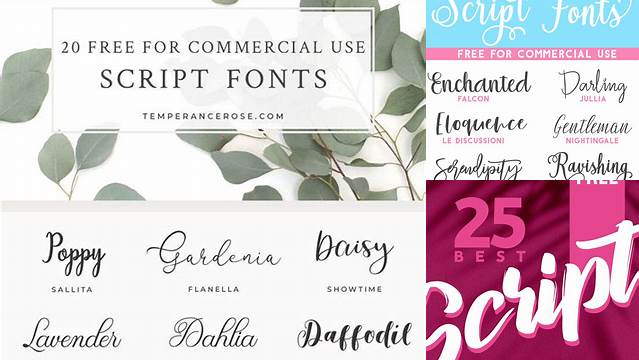
Top Free Script Fonts For Commercial Use
Hey guys! Finding the perfect font for your project can be a real headache, especially when you need something that looks amazing and is free for commercial use. Let’s dive into some of the best free script fonts that will make your designs pop without breaking the bank.
1. Understanding Freemercial Fonts
Choosing the right font is crucial for branding and readability. A good script font can add a touch of elegance or fun, depending on the style. The best free script fonts offer versatility and can be used in a variety of projects, from logos to marketing materials.
When browsing for the perfect free script fonts, you'll want to look at aspects like legibility, style, and overall aesthetic appeal. A font that looks great but is hard to read won't do you any favors. You want something that enhances your design and communicates your message effectively. Remember that the overall goal is to find the best free script fonts that complement your brand and style.
2. Elegant Freemercial Script Fonts
If you're aiming for sophistication, elegant freemercial script fonts are the way to go. These fonts often feature flowing lines and delicate curves, making them ideal for wedding invitations, luxury branding, and high-end product designs. The key is to choose a font that exudes class without being overly ornate. Imagine a beautifully designed logo for a boutique using a graceful script—it instantly conveys a sense of quality and attention to detail.
The most effective elegant freemercial script fonts are those that strike a balance between beauty and readability. A font might be visually stunning, but if it's difficult to decipher, it won't serve its purpose. Look for fonts that maintain a clear structure while still showcasing elegant flourishes. For instance, a font with subtle swashes and refined letterforms can add a touch of sophistication without sacrificing clarity.
When selecting elegant freemercial script fonts, consider the overall tone and message of your project. A font that feels too casual or playful might not be suitable for a formal event invitation, while a font that is too rigid could feel out of place in a creative branding campaign. The goal is to find a font that aligns seamlessly with your aesthetic and communicates the desired impression.
3. Modern Freemercial Script Fonts
Modern freemercial script fonts bring a contemporary edge to your projects. Think clean lines, bold strokes, and a fresh feel. These fonts work wonders for tech startups, fashion brands, and anything that needs a current, stylish vibe. They’re versatile enough to use in web design, social media graphics, and even app interfaces.
The strength of modern freemercial script fonts lies in their ability to blend traditional script elements with modern design principles. Unlike more ornate or traditional scripts, these fonts often feature simplified letterforms and a more streamlined aesthetic. This makes them well-suited for digital applications, where clarity and legibility are paramount.
Choosing modern freemercial script fonts means considering how well the font integrates with other design elements. A modern script should complement your overall visual identity, adding a touch of personality without overwhelming the rest of the design. Think about how the font will look alongside other typefaces, images, and graphic elements to ensure a cohesive and visually appealing result.
4. Casual Freemercial Script Fonts
For a relaxed and friendly feel, casual freemercial script fonts are your best bet. These fonts have a handwritten touch, making them perfect for blog headers, greeting cards, and anything that needs a personal touch. They often have a slightly imperfect, playful quality that adds character to your designs.
What makes casual freemercial script fonts so appealing is their ability to convey warmth and approachability. Unlike more formal or sophisticated scripts, these fonts feel relatable and down-to-earth. They evoke a sense of authenticity, making them ideal for projects that aim to connect with audiences on a personal level.
When using casual freemercial script fonts, it's important to consider the context and tone of your message. A casual font might not be appropriate for a serious or formal project, but it can be incredibly effective for adding a touch of personality to more lighthearted designs. Think about how the font complements your overall message and ensures that it resonates with your target audience.
5. Bold Freemercial Script Fonts
Need to make a statement? Bold freemercial script fonts are here to help! These fonts are strong and eye-catching, ideal for headlines, posters, and branding that needs to stand out. Their thick strokes and confident curves demand attention, ensuring your message gets noticed.
The power of bold freemercial script fonts lies in their ability to command attention. These fonts are designed to make an impact, drawing the viewer's eye and conveying a sense of strength and confidence. They are particularly effective in headlines and titles, where they can instantly grab the reader's attention and communicate the main message.
When selecting bold freemercial script fonts, it's important to consider the overall design and ensure that the font complements other elements. A bold font can easily overpower a design if not used carefully, so it's essential to strike a balance and ensure that the font works harmoniously with other typefaces, images, and graphic elements.
6. Thin Freemercial Script Fonts
For a delicate and subtle touch, thin freemercial script fonts are a great choice. These fonts are light and airy, perfect for adding a touch of elegance to invitations, logos, and designs where subtlety is key. Their fine lines create a sophisticated, understated look.
The appeal of thin freemercial script fonts lies in their understated elegance. These fonts are designed to convey a sense of refinement and sophistication, making them ideal for projects that require a delicate touch. They work particularly well in applications where subtlety is valued, such as wedding invitations, luxury branding, and high-end product designs.
When choosing thin freemercial script fonts, it's important to ensure that the font remains legible, especially at smaller sizes. Thin fonts can sometimes become difficult to read if the lines are too fine or the contrast is too low. It's essential to test the font in various sizes and contexts to ensure that it remains clear and readable.
7. Vintage Freemercial Script Fonts
Vintage freemercial script fonts bring a touch of nostalgia to your designs. These fonts often feature ornate details and a classic feel, perfect for retro branding, posters, and projects that need a timeless appeal. They evoke a sense of history and craftsmanship.
The charm of vintage freemercial script fonts is their ability to transport viewers to another era. These fonts often feature elaborate swashes, ornamental details, and a handcrafted feel that evokes a sense of nostalgia. They are particularly effective for projects that aim to capture a vintage aesthetic, such as retro branding, antique-inspired designs, and historical recreations.
When using vintage freemercial script fonts, it's important to consider the overall context and ensure that the font aligns with the desired historical period. Different vintage fonts evoke different eras, so it's essential to choose a font that accurately reflects the intended time period. Pay attention to details such as letterforms, ornamentation, and overall style to ensure that the font captures the essence of the vintage aesthetic.
8. Handwritten Freemercial Script Fonts
For an authentic, personal touch, handwritten freemercial script fonts are the way to go. These fonts mimic real handwriting, making them perfect for signatures, notes, and designs that need a human feel. They add warmth and character to any project.
What makes handwritten freemercial script fonts so appealing is their ability to convey authenticity and personality. These fonts mimic the irregularities and nuances of real handwriting, creating a sense of intimacy and connection. They are particularly effective for projects that aim to establish a personal connection with the audience, such as handwritten notes, personalized stationery, and custom artwork.
When selecting handwritten freemercial script fonts, it's important to ensure that the font remains legible and readable. Handwriting styles can vary widely, so it's essential to choose a font that balances authenticity with clarity. Look for fonts that capture the essence of handwriting without sacrificing legibility.
9. Brush Freemercial Script Fonts
Brush freemercial script fonts have a textured, artistic look, like they were painted with a brush. These fonts are great for posters, logos, and designs that need a handmade feel. They add a dynamic, expressive touch to your work.
The allure of brush freemercial script fonts lies in their ability to convey a sense of artistic expression and spontaneity. These fonts mimic the strokes and textures of real brush lettering, creating a dynamic and visually engaging effect. They are particularly effective for projects that aim to capture a handmade or artisanal aesthetic, such as posters, logos, and artistic designs.
When using brush freemercial script fonts, it's important to consider the overall design and ensure that the font complements other elements. Brush fonts can be quite bold and expressive, so it's essential to use them sparingly and balance them with other design elements. Think about how the font interacts with images, colors, and other typefaces to create a cohesive and visually appealing composition.
10. Calligraphy Freemercial Script Fonts
Calligraphy freemercial script fonts bring an elegant, refined touch to your designs. These fonts mimic traditional calligraphy, perfect for wedding invitations, formal announcements, and projects that need a classic, sophisticated look. They add a touch of artistry and grace.
What makes calligraphy freemercial script fonts so special is their ability to convey elegance and sophistication. These fonts mimic the fluid strokes and ornate details of traditional calligraphy, creating a sense of refinement and artistry. They are particularly effective for projects that require a formal or upscale aesthetic, such as wedding invitations, formal announcements, and luxury branding.
When selecting calligraphy freemercial script fonts, it's important to ensure that the font remains legible and readable. Calligraphy styles can vary widely, so it's essential to choose a font that balances elegance with clarity. Look for fonts that capture the essence of calligraphy without sacrificing legibility.
11. Display Freemercial Script Fonts
Display freemercial script fonts are designed to grab attention. These fonts are bold, unique, and often quirky, perfect for headlines, posters, and designs that need to stand out. They're all about making a statement.
The strength of display freemercial script fonts lies in their ability to command attention and create a visual impact. These fonts are designed to be eye-catching and memorable, making them ideal for headlines, posters, and other applications where visual prominence is essential. They often feature unique letterforms, exaggerated details, and unconventional designs.
When using display freemercial script fonts, it's important to consider the overall design and ensure that the font complements other elements. Display fonts can be quite bold and attention-grabbing, so it's essential to use them sparingly and balance them with other design elements. Think about how the font interacts with images, colors, and other typefaces to create a cohesive and visually appealing composition.
12. Light Freemercial Script Fonts
Light freemercial script fonts offer a subtle, airy feel. These fonts are delicate and refined, perfect for designs where you want to add a touch of elegance without overpowering the overall look. They’re great for invitations, logos, and subtle branding elements.
The appeal of light freemercial script fonts lies in their understated elegance and subtlety. These fonts are designed to convey a sense of refinement and sophistication without being overly assertive. They work particularly well in applications where a delicate touch is desired, such as wedding invitations, luxury branding, and minimalist designs.
When choosing light freemercial script fonts, it's important to ensure that the font remains legible, especially at smaller sizes. Light fonts can sometimes become difficult to read if the lines are too fine or the contrast is too low. It's essential to test the font in various sizes and contexts to ensure that it remains clear and readable.
13. Rounded Freemercial Script Fonts
Rounded freemercial script fonts provide a soft, friendly vibe. These fonts feature smooth, curved lines, making them perfect for designs that need a warm and approachable feel. Think greeting cards, children’s books, and friendly branding.
The charm of rounded freemercial script fonts is their ability to convey warmth and friendliness. These fonts feature soft, curved lines and gentle shapes, creating a sense of approachability and comfort. They are particularly effective for projects that aim to evoke positive emotions, such as greeting cards, children's books, and friendly branding campaigns.
When using rounded freemercial script fonts, it's important to consider the overall tone and message of your project. Rounded fonts might not be appropriate for formal or serious applications, but they can be incredibly effective for adding a touch of warmth and personality to more lighthearted designs. Think about how the font complements your overall message and ensures that it resonates with your target audience.
14. Condensed Freemercial Script Fonts
Condensed freemercial script fonts are narrow and space-saving. These fonts are perfect when you need to fit a lot of text into a small area without sacrificing readability. They’re great for packaging, labels, and tight layouts.
The practicality of condensed freemercial script fonts lies in their ability to maximize space without sacrificing readability. These fonts feature narrow letterforms and compact designs, making them ideal for applications where space is limited, such as packaging, labels, and tight layouts. They allow you to fit more text into a smaller area while maintaining clarity and legibility.
When selecting condensed freemercial script fonts, it's important to ensure that the font remains legible, especially at smaller sizes. Condensed fonts can sometimes become difficult to read if the letterforms are too narrow or the spacing is too tight. It's essential to test the font in various sizes and contexts to ensure that it remains clear and readable.
15. Expanded Freemercial Script Fonts
Expanded freemercial script fonts are wide and bold. These fonts offer a strong, impactful presence, making them great for headlines, posters, and designs that need to command attention. They provide a robust, confident look.
The impact of expanded freemercial script fonts lies in their ability to command attention and create a visual presence. These fonts feature wide letterforms and bold designs, making them ideal for headlines, posters, and other applications where visual prominence is essential. They offer a robust and confident look that can instantly grab the viewer's attention.
When using expanded freemercial script fonts, it's important to consider the overall design and ensure that the font complements other elements. Expanded fonts can be quite bold and attention-grabbing, so it's essential to use them sparingly and balance them with other design elements. Think about how the font interacts with images, colors, and other typefaces to create a cohesive and visually appealing composition.
16. Textured Freemercial Script Fonts
Textured freemercial script fonts add depth and visual interest to your designs. These fonts often have rough, uneven edges, giving them a handmade or vintage feel. They’re perfect for projects that need character and authenticity.
The appeal of textured freemercial script fonts lies in their ability to convey a sense of authenticity and craftsmanship. These fonts feature rough, uneven edges and textured surfaces, creating a handmade or vintage feel. They are particularly effective for projects that aim to capture a tactile or artisanal aesthetic, such as vintage-inspired designs, rustic branding, and handcrafted artwork.
When using textured freemercial script fonts, it's important to consider the overall design and ensure that the font complements other elements. Textured fonts can be quite distinctive and attention-grabbing, so it's essential to use them sparingly and balance them with other design elements. Think about how the font interacts with images, colors, and other typefaces to create a cohesive and visually appealing composition.
17. Layered Freemercial Script Fonts
Layered freemercial script fonts offer a unique, dimensional look. These fonts consist of multiple layers that can be customized with different colors and effects, allowing for endless creative possibilities. They’re great for logos, posters, and eye-catching designs.
The versatility of layered freemercial script fonts lies in their ability to create depth and visual interest through customizable layers. These fonts consist of multiple elements that can be stacked and styled independently, allowing for a wide range of creative effects. They are particularly effective for logos, posters, and other designs where a unique and dimensional look is desired.
When using layered freemercial script fonts, it's important to experiment with different color combinations and effects to achieve the desired visual impact. Layered fonts can be quite complex, so it's essential to spend time exploring the various options and finding the combination that best suits your project.
18. Sans-Serif Pairing with Freemercial Scripts
Pairing a freemercial script font with a sans-serif font can create a balanced and visually appealing design. The clean lines of the sans-serif font complement the flowing curves of the script, providing both readability and elegance. This combination works well for logos, websites, and marketing materials.
The key to successful sans-serif pairing with freemercial scripts is to find fonts that complement each other without competing for attention. Look for sans-serif fonts that are simple and understated, allowing the script font to take center stage. Consider factors such as font weight, letter spacing, and overall style to ensure that the two fonts work harmoniously together.
When choosing a sans-serif pairing with freemercial scripts, it's important to test the combination in various sizes and contexts to ensure that it remains legible and visually appealing. The goal is to create a balanced and cohesive design that is both readable and aesthetically pleasing.
19. Serif Pairing with Freemercial Scripts
Combining a freemercial script font with a serif font can create a classic and sophisticated look. The serifs add a touch of formality, while the script provides a personal, handwritten feel. This pairing is perfect for invitations, branding, and designs that need a touch of elegance.
To achieve a harmonious serif pairing with freemercial scripts, it's important to select fonts that complement each other in terms of style and weight. Look for serif fonts that have a similar level of formality and elegance as the script font. Consider factors such as serif style, letter spacing, and overall design to ensure that the two fonts work well together.
When selecting a serif pairing with freemercial scripts, it's important to test the combination in various sizes and contexts to ensure that it remains legible and visually appealing. The goal is to create a balanced and cohesive design that is both readable and aesthetically pleasing.
20. Monoline Freemercial Script Fonts
Monoline freemercial script fonts feature strokes of consistent thickness, creating a clean and modern look. These fonts are versatile and easy to read, making them great for logos, signage, and designs that need a minimalist touch. Their simplicity adds a contemporary feel.
The appeal of monoline freemercial script fonts lies in their clean and modern aesthetic. These fonts feature strokes of consistent thickness, creating a uniform and uncluttered look. They are particularly effective for applications where simplicity and legibility are paramount, such as logos, signage, and minimalist designs.
When using monoline freemercial script fonts, it's important to consider the overall design and ensure that the font complements other elements. Monoline fonts can be quite subtle, so it's essential to use them in a way that allows them to stand out and make an impact. Think about how the font interacts with images, colors, and other typefaces to create a cohesive and visually appealing composition.
21. Italic Freemercial Script Fonts
Italic freemercial script fonts add a touch of flair and emphasis to your designs. These fonts are slanted and often more decorative than their regular counterparts, making them perfect for highlighting key phrases, adding a sense of movement, and creating visual interest. They’re great for quotes, headings, and callouts.
The charm of italic freemercial script fonts is their ability to convey a sense of dynamism and personality. The slanted letterforms add a touch of flair and emphasis, making them ideal for highlighting key phrases and creating visual interest. They work particularly well in quotes, headings, and callouts, where they can draw the reader's eye and add a touch of elegance.
When using italic freemercial script fonts, it's important to use them sparingly and strategically to avoid overwhelming the design. Italic fonts are most effective when used to highlight specific words or phrases, rather than large blocks of text. Think about how the italic font complements the overall design and ensures that it enhances the message.
22. Cyrillic Freemercial Script Fonts
Cyrillic freemercial script fonts allow you to create designs in Cyrillic alphabets with a touch of elegance and style. These fonts are essential for projects targeting Russian, Ukrainian, and other Cyrillic-speaking audiences. They ensure your message is not only understood but also visually appealing.
The importance of Cyrillic freemercial script fonts lies in their ability to cater to a specific linguistic and cultural audience. These fonts allow you to create designs that resonate with Cyrillic-speaking communities, ensuring that your message is not only translated accurately but also presented in a visually appealing manner. They are essential for projects targeting Russian, Ukrainian, and other Cyrillic-speaking markets.
When selecting Cyrillic freemercial script fonts, it's important to ensure that the font is well-designed and legible in the Cyrillic alphabet. Cyrillic letterforms can differ significantly from Latin letterforms, so it's essential to choose a font that accurately and attractively represents the Cyrillic script. Look for fonts that have been specifically designed for Cyrillic typography and have been tested for readability and visual appeal.
23. Greek Freemercial Script Fonts
Greek freemercial script fonts offer a way to add a touch of Hellenic flair to your designs. These fonts are crucial for projects targeting Greek-speaking audiences or those that want to evoke a classical, Mediterranean feel. They combine readability with a unique, cultural aesthetic.
The value of Greek freemercial script fonts is their ability to cater to a specific linguistic and cultural context. These fonts allow you to create designs that resonate with Greek-speaking communities, ensuring that your message is not only translated accurately but also presented in a visually appealing manner. They are essential for projects targeting Greek audiences or those that aim to capture a classical or Mediterranean aesthetic.
When choosing Greek freemercial script fonts, it's important to ensure that the font is well-designed and legible in the Greek alphabet. Greek letterforms can differ significantly from Latin letterforms, so it's essential to choose a font that accurately and attractively represents the Greek script. Look for fonts that have been specifically designed for Greek typography and have been tested for readability and visual appeal.
24. Retro Freemercial Script Fonts
Retro freemercial script fonts bring a nostalgic touch to your designs, reminiscent of the mid-20th century. These fonts are perfect for projects that aim to evoke a vintage feel, such as posters, logos, and branding materials for retro-themed businesses. They add a unique, old-school charm.
The appeal of retro freemercial script fonts lies in their ability to transport viewers back in time. These fonts often feature bold strokes, playful curves, and a distinctive style that evokes the design trends of the mid-20th century. They are particularly effective for projects that aim to capture a vintage aesthetic, such as posters, logos, and branding materials for retro-themed businesses.
When using retro freemercial script fonts, it's important to consider the overall design and ensure that the font aligns with the desired historical period. Different retro fonts evoke different eras, so it's essential to choose a font that accurately reflects the intended time period. Pay attention to details such as letterforms, ornamentation, and overall style to ensure that the font captures the essence of the retro aesthetic.
25. Distressed Freemercial Script Fonts
Distressed freemercial script fonts offer a worn, weathered look, adding character and authenticity to your designs. These fonts are ideal for projects that need a rugged, vintage, or handmade feel. They work well for posters, labels, and designs that aim to convey a sense of history and craftsmanship.
The charm of distressed freemercial script fonts is their ability to convey a sense of age and authenticity. These fonts feature rough edges, uneven surfaces, and a worn appearance, creating a distressed or weathered look. They are particularly effective for projects that aim to capture a vintage or handmade aesthetic, such as posters, labels, and designs that aim to convey a sense of history and craftsmanship.
When using distressed freemercial script fonts, it's important to consider the overall design and ensure that the font complements other elements. Distressed fonts can be quite distinctive and attention-grabbing, so it's essential to use them sparingly and balance them with other design elements. Think about how the font interacts with images, colors, and other typefaces to create a cohesive and visually appealing composition.
26. Script Fonts for Logo Design
Script fonts can add a unique and memorable touch to logo design. When choosing script fonts for logo design, consider the brand's personality and target audience. An elegant script can convey sophistication, while a casual script can evoke friendliness. Ensure the font is legible and scalable for various logo sizes.
The right script fonts for logo design can make a brand stand out. Consider the brand’s message and style when selecting a font. A free script font might be perfect for a boutique, while a bold script works for a modern startup. The goal is to find a script font for logo design that complements the brand’s identity.
When choosing script fonts for logo design, readability is key. A beautiful font that is hard to read won't serve its purpose. Ensure that the best free script fonts you choose are clear and legible, even in small sizes. Consider how the font will look on different backgrounds and in various applications, such as websites and business cards.
27. Script Fonts for Web Design
Using script fonts for web design can enhance the visual appeal of your website, but it's crucial to use them judiciously. Overusing script fonts can negatively impact readability and loading times. Stick to using script fonts for web design in headings and accents, and ensure they are paired with a readable sans-serif font for body text.
The selection of script fonts for web design depends on the website's purpose and target audience. A formal website might benefit from an elegant script, while a creative blog could use a more casual script. The best free script fonts for web design are those that load quickly and render well on different devices.
Readability is paramount when selecting script fonts for web design. Choose free script fonts that are easy to read on screens, even at smaller sizes. Consider the contrast between the font and the background, and ensure the font is properly optimized for web use. Test the font on different browsers and devices to ensure it displays correctly.
28. Script Fonts for Print Design
Script fonts for print design can add elegance and personality to your printed materials, such as invitations, posters, and brochures. When choosing script fonts for print design, consider the overall aesthetic and ensure the font is legible at the intended print size. High-quality free script fonts can make your print projects stand out.
The effectiveness of script fonts for print design depends on the type of project. A formal invitation would benefit from an elegant script, while a poster could use a bolder script. The best free script fonts for print design are those that reproduce well on paper and maintain their legibility.
When selecting script fonts for print design, ensure the font is suitable for the printing process. Some free script fonts may not reproduce well at certain sizes or on certain types of paper. Test the font before printing a large batch to ensure it looks as intended. Consider the color and contrast of the font in relation to the background.
29. Script Fonts for Social Media Graphics
Using script fonts for social media graphics can help your content stand out and attract attention. When choosing script fonts for social media graphics, consider the platform and audience. A playful script might work well on Instagram, while a more professional script is suitable for LinkedIn. High-quality free script fonts can enhance your social media presence.
The right script fonts for social media graphics can increase engagement. Select a font that aligns with your brand's voice and style. The best free script fonts for social media are those that are eye-catching and easy to read on small screens. Consider how the font will look alongside images and other design elements.
When choosing script fonts for social media graphics, readability is essential. Free script fonts that are difficult to read can deter viewers from engaging with your content. Ensure that the font is clear and legible, even on small screens. Consider the color and contrast of the font in relation to the background, and test the font on different devices to ensure it displays correctly.
30. Combining Multiple Script Fonts
Combining multiple script fonts can create a visually dynamic and interesting design, but it requires careful consideration. When combining multiple script fonts, ensure they complement each other in terms of style and weight. Avoid using too many script fonts in one design, as this can lead to visual clutter.
The key to successful combining multiple script fonts is to create contrast. Pair a bold script with a thin script, or an elegant script with a casual script. The best free script fonts to combine are those that have distinct styles but still work harmoniously together.
When combining multiple script fonts, readability should still be a priority. Ensure that each free script font is legible and easy to read, even when used in conjunction with other fonts. Consider the overall hierarchy of the design and use different fonts to highlight different elements. Test the combination on different devices to ensure it displays correctly.